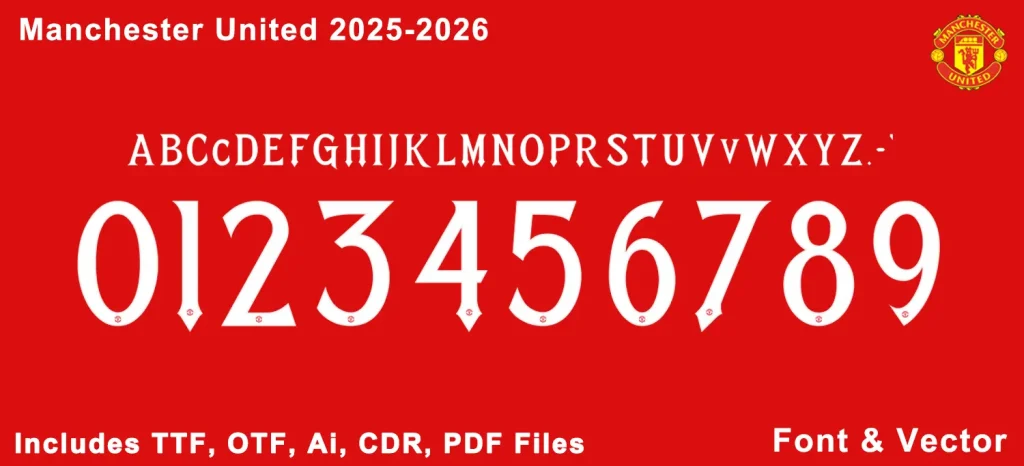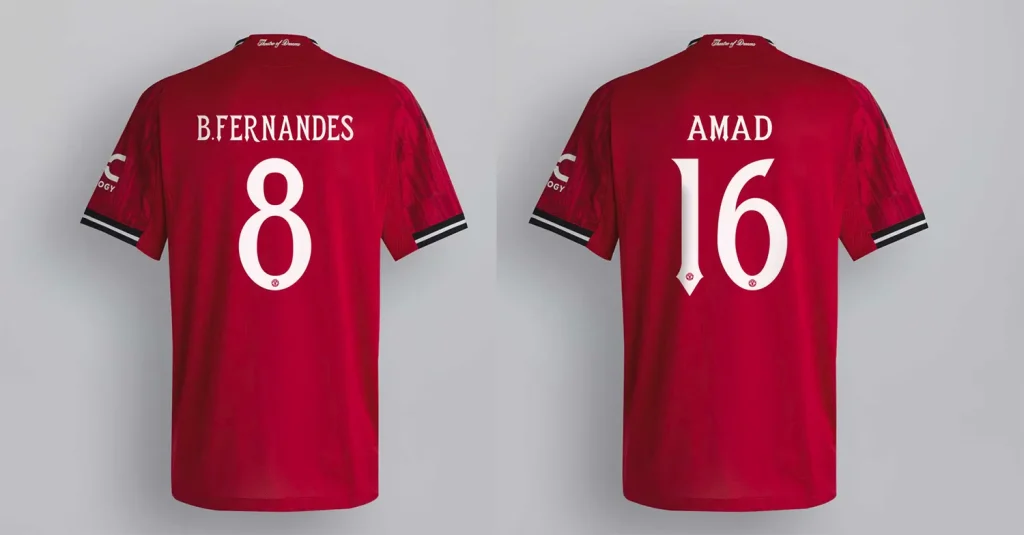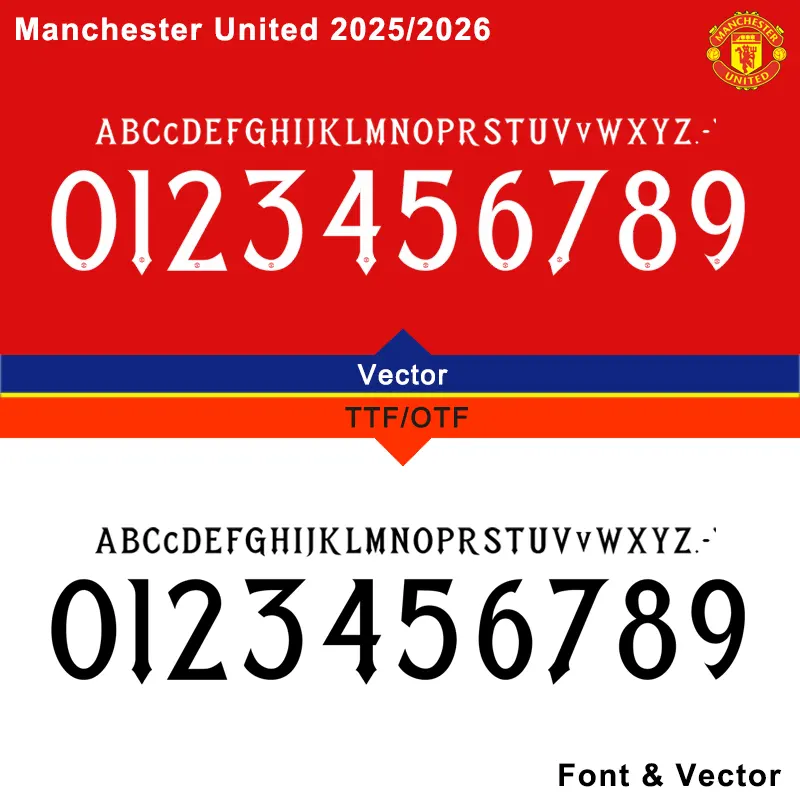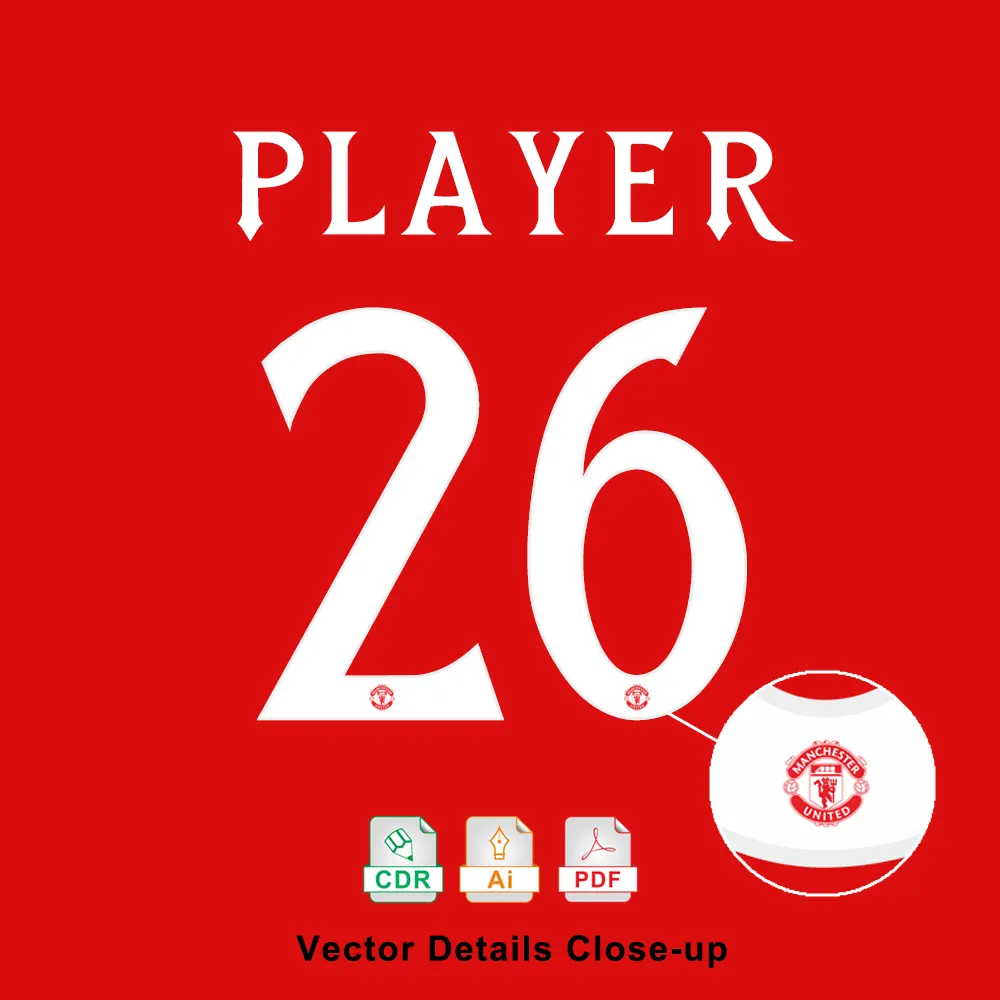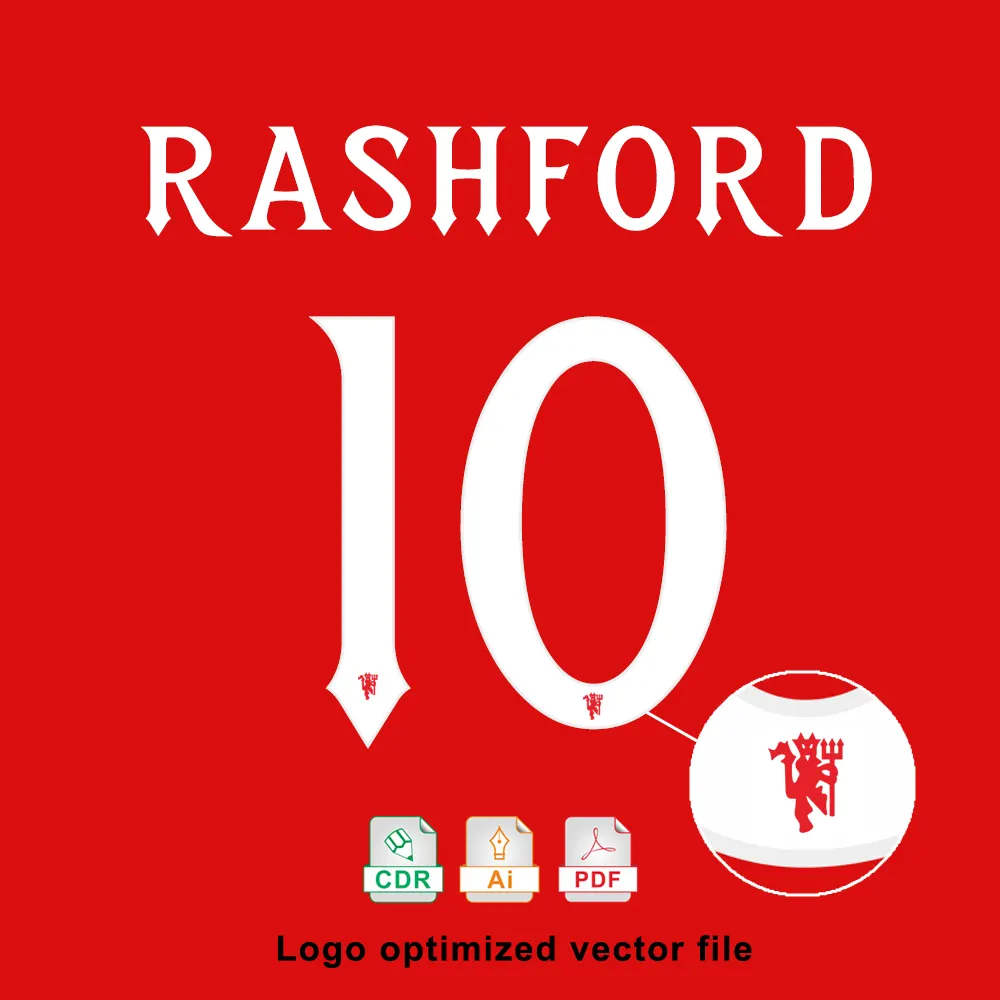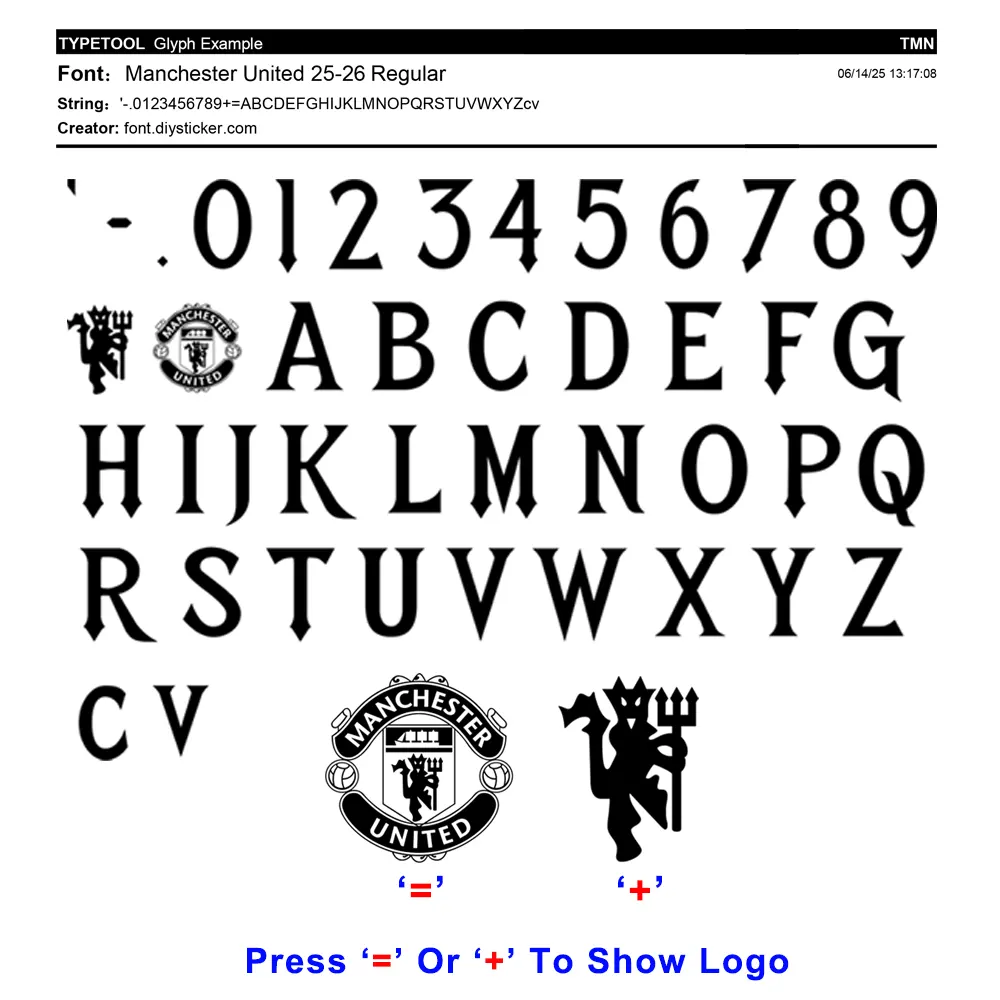
Step into the world of professional design with the authentic Manchester United font for the 2025/2026 season. This is the exact, official typeface seen on the back of your favorite players’ jerseys, from Old Trafford to away games. Now, you can bring that same professional quality to your own creative projects.
This font boasts a modern and distinctive design, featuring unique stylistic elements and a sharp, clean finish that looks incredible both on-screen and in print. Whether you’re a die-hard supporter, a graphic designer, or a content creator, this font kit provides the ultimate tools for all your Man United-themed creations.
A standout feature of this typeface is the integration of the iconic Manchester United club logos. The full club crest is embedded within each number, adding a touch of official class to your designs.